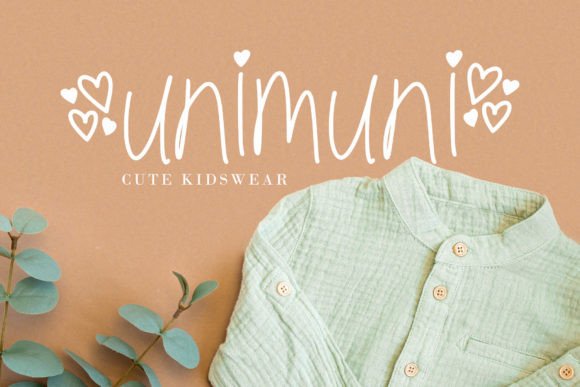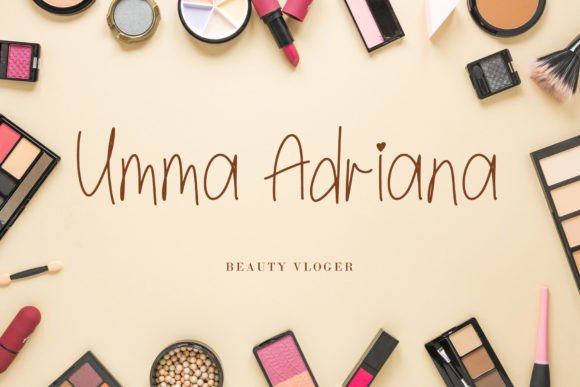
About Briamitta Font
Introducing Briamitta, a monoline handwritten font that radiates cuteness, brightness, and fun. With its charming and playful style, Briamitta is the perfect choice for children-themed designs, especially when paired with vibrant and pastel colors. This beautiful display font is designed to elevate your creative ideas and make them stand out with a touch of whimsy.
Briamitta’s monoline design adds a consistent and delightful look to your text, making it visually appealing for various applications. The handwritten style injects a sense of warmth and friendliness, making it an ideal font for projects targeted at a younger audience.
When combined with bright and pastel colors, Briamitta comes to life, creating a harmonious and joyful visual experience. Whether you’re working on children’s books, educational materials, playful signage, or any other creative project for kids, this font adds a delightful and inviting touch.
The versatility of Briamitta extends to a variety of design contexts. It seamlessly fits into posters, invitations, banners, and other projects that require a cute and fun aesthetic. Its playful demeanor makes it an excellent choice for creating a lighthearted atmosphere in your designs.
In summary, Briamitta isn’t just a font; it’s a cheerful companion that brings a sense of cuteness and fun to your creative endeavors. Download Briamitta now and notice how it transforms your projects, making them visually captivating and appealing, especially for children-themed designs. With its bright and playful personality, Briamitta is ready to add a touch of joy to your creative palette.